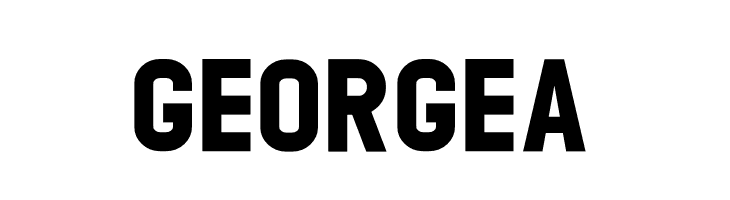
A modern, geometric sans-serif font with clean lines and balanced spacing.
A bold, sans-serif font with a strong, modern aesthetic.
A bold, italic font with a dynamic and modern style.
A bold and expressive brush script font with dynamic strokes and a hand-drawn feel.
An ornate Blackletter font with decorative uppercase and sharp, angular lowercase letters.
A modern, geometric font with a futuristic and edgy design.
A clean, minimalist font with a condensed and light structure.
A modern, shaded, condensed font with a light and geometric style.
A playful, hand-drawn font with irregular, fluid characters.
A delicate, hand-drawn font with thin, whimsical lines.
A bold, textured font with a vintage shaded effect.
A bold, retro font with playful, wavy contours and a psychedelic style.
A bold, angular font with a modern and dynamic design.
A bold, angular font with high contrast and a strong geometric style.
A bold, Gothic-inspired font with ornate detailing and a dramatic flair.
A bold, thick-stroked font with a strong, assertive presence.
A bold, impactful font with thick, uniform strokes and rounded edges.
A bold, angular font with a futuristic and aggressive style.
A playful, handwritten-style font with bold, slightly tilted characters.
A bold, geometric font with a modern, futuristic style.
A bold, distressed font with a rugged, vintage look.
A bold, distressed font with a rough, textured appearance.
Bold, condensed sans-serif font for impactful designs.
Bold italic sans-serif font with a dynamic style.
Bold, condensed sans-serif font with sharp lines.
Bold, italic sans-serif with sharp, modern design.
Bold, modern sans-serif font.
Bold italic sans-serif font with a modern style.
Bold, italic sans-serif with a soft look.
Bold, modern sans-serif font.
Bold italic sans-serif font with a modern look.
Bold, italic sans-serif with a soft, rounded style.